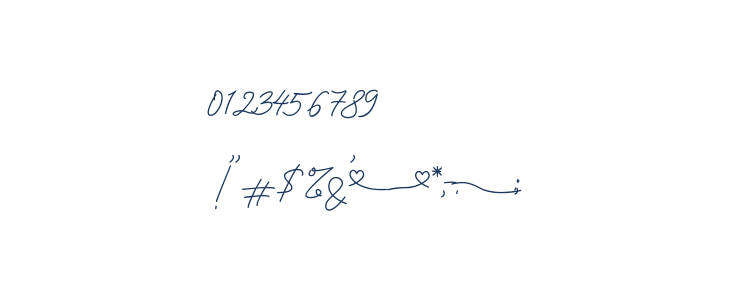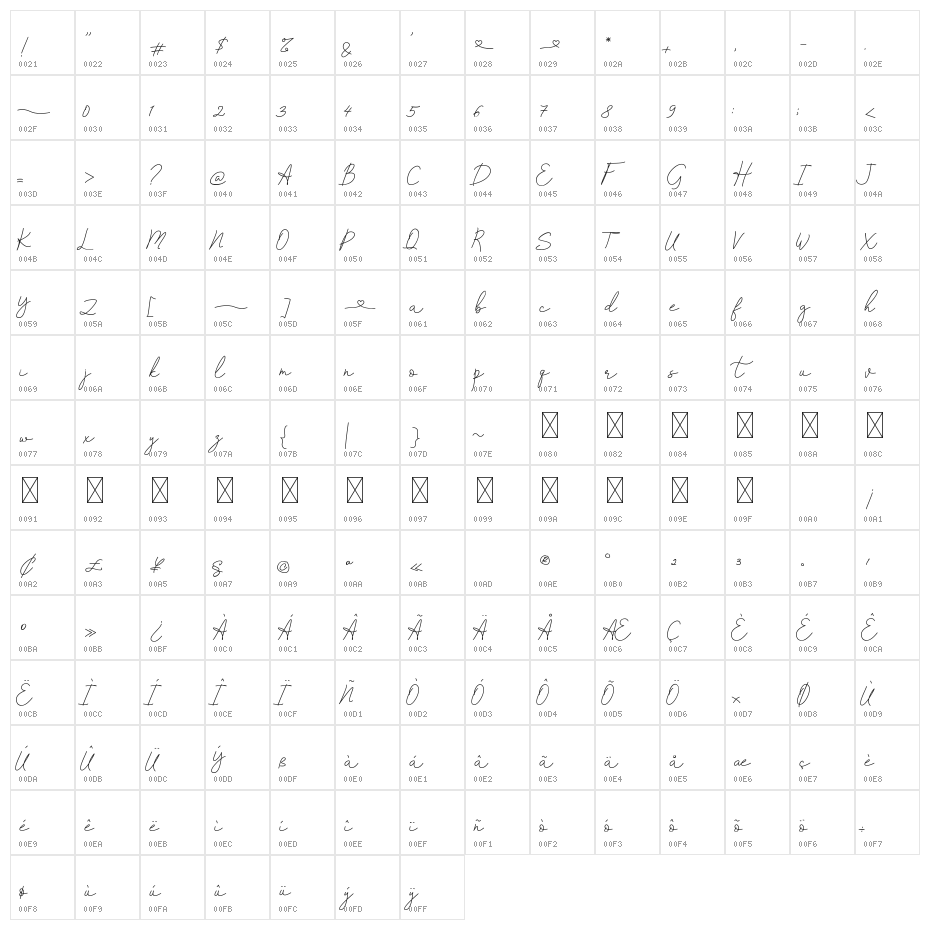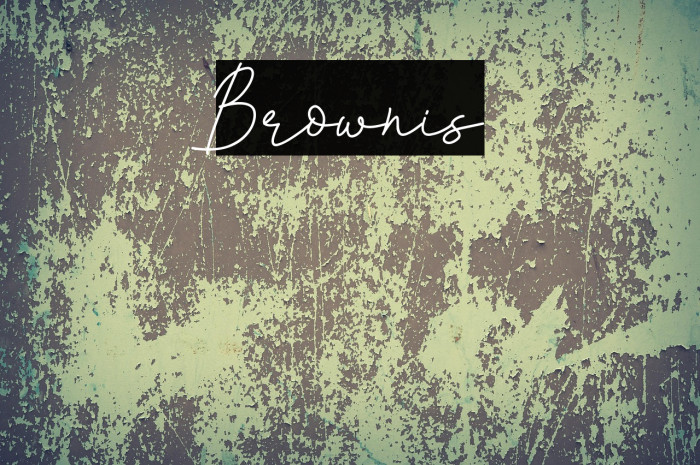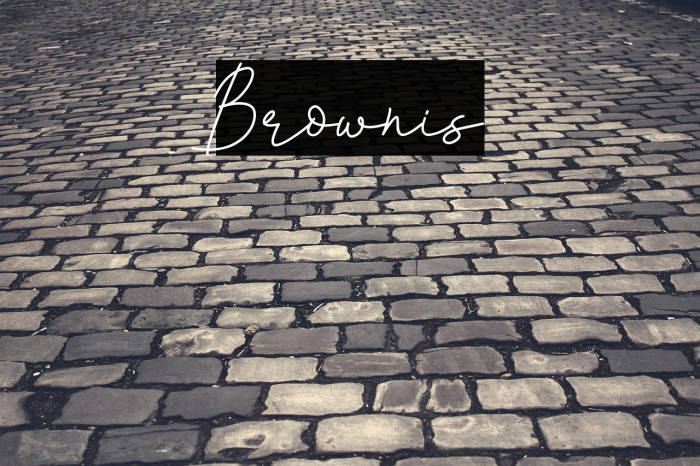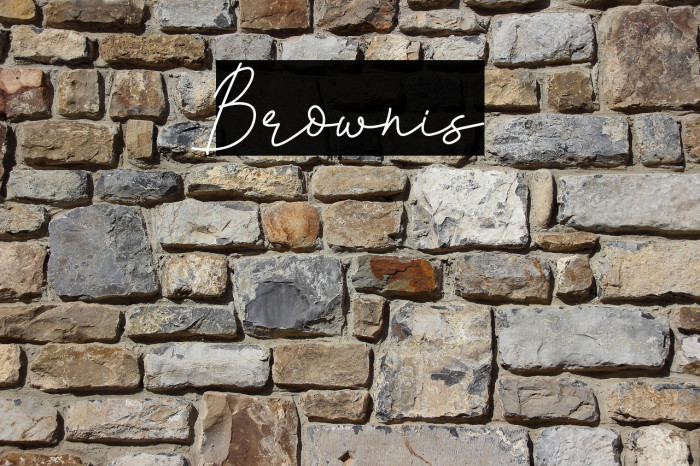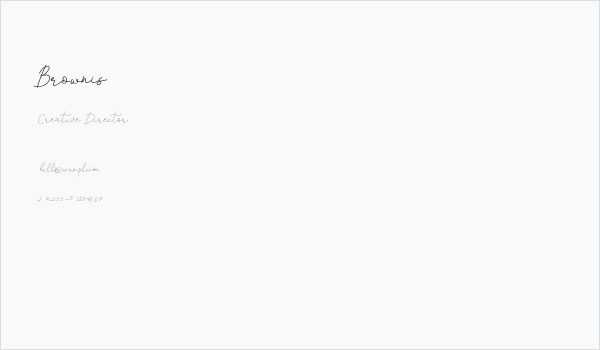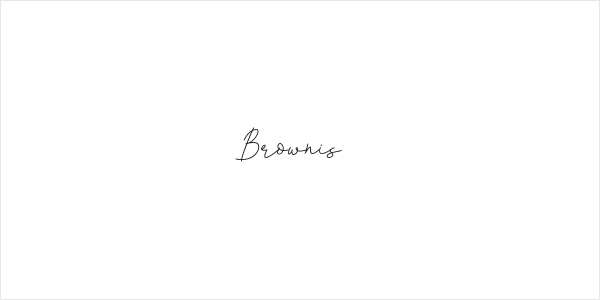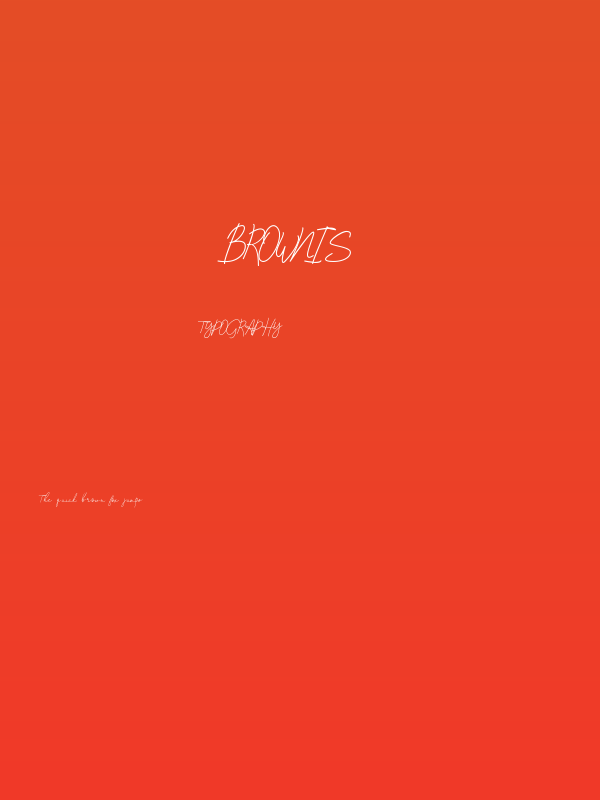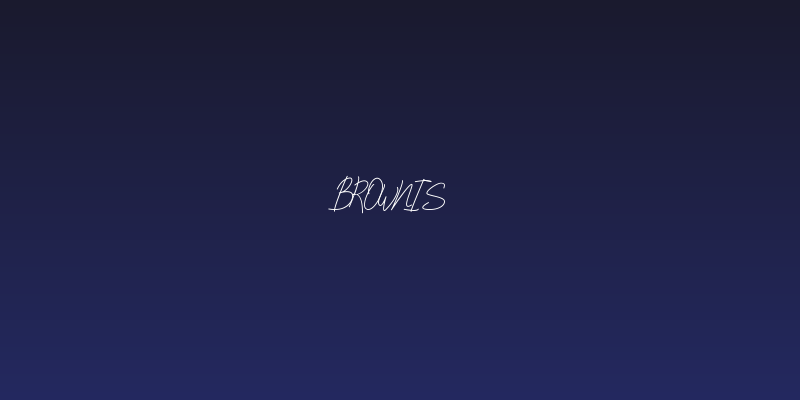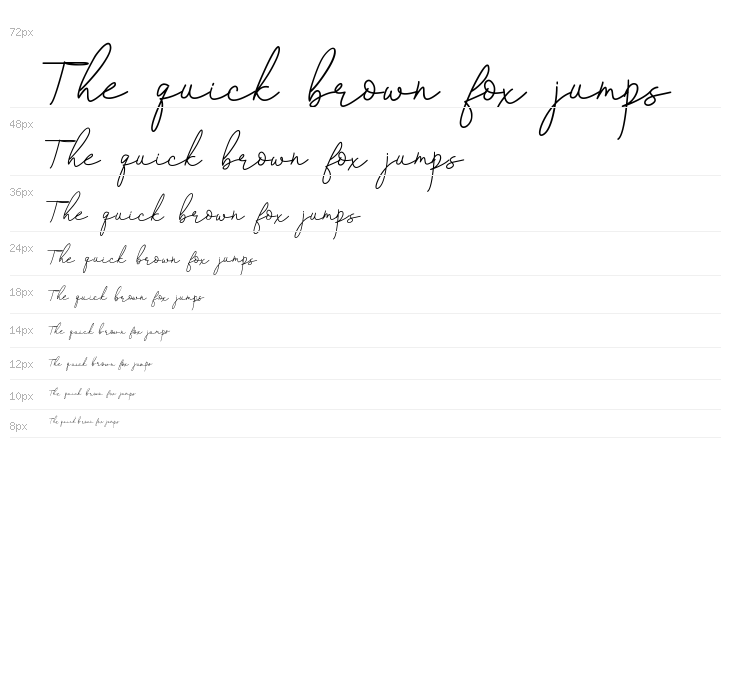
Brownis Font
Brownis Description
This elegant script font features a flowing, handwritten style that exudes a sense of sophistication and grace. The uppercase letters are tall and slightly slanted, with smooth, continuous strokes that create a seamless connection between characters. The lowercase letters maintain a consistent flow, with delicate loops and curves that enhance the font's fluidity. The numerals are crafted with the same attention to detail, offering a harmonious blend with the alphabet. Special characters are adorned with subtle flourishes, adding a touch of whimsy. This font's overall aesthetic is both modern and timeless, making it suitable for a variety of design applications.
| Overall Style | Elegant, Modern, Timeless |
| Use Case | Logos, Invitations, Personal stationery |
| Proposed Projects | Ideal for wedding invitations, elegant branding, personal stationery, and romantic quotes. |